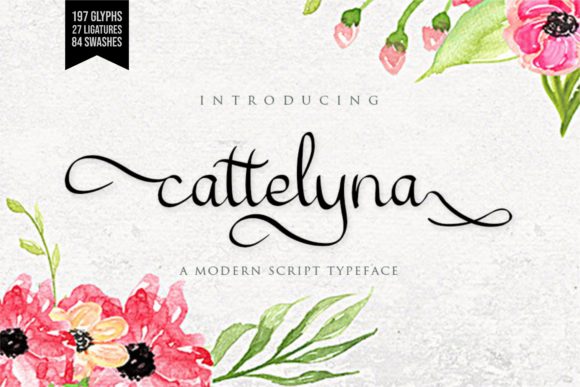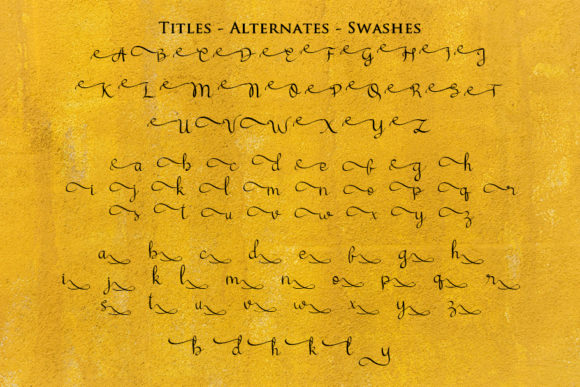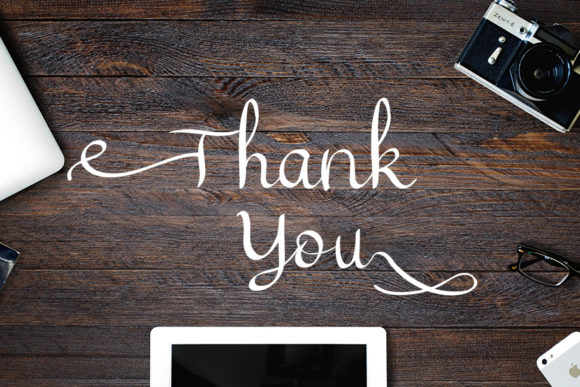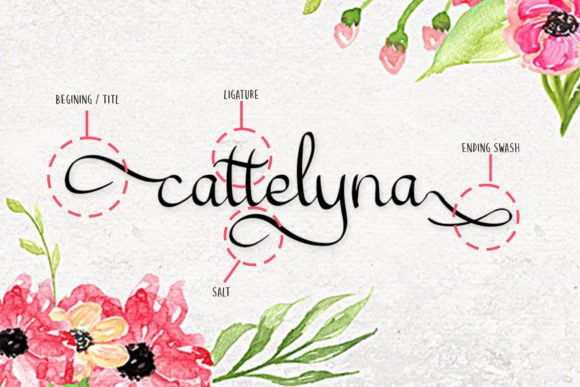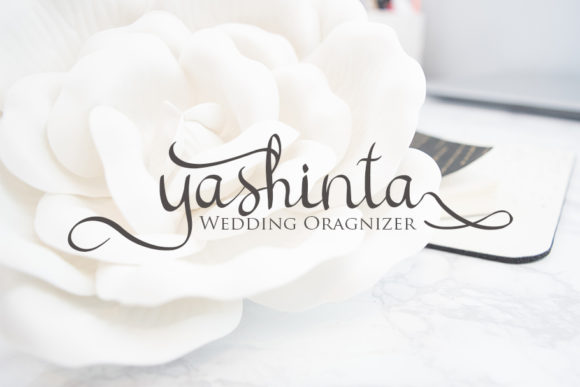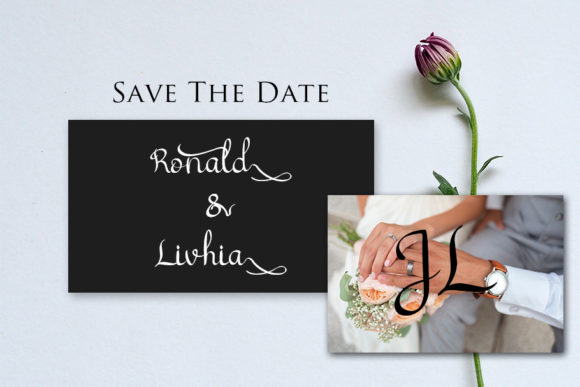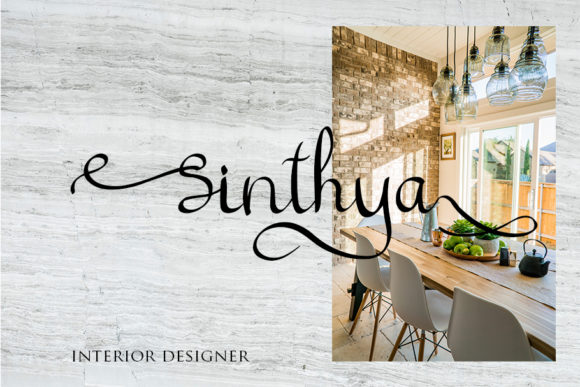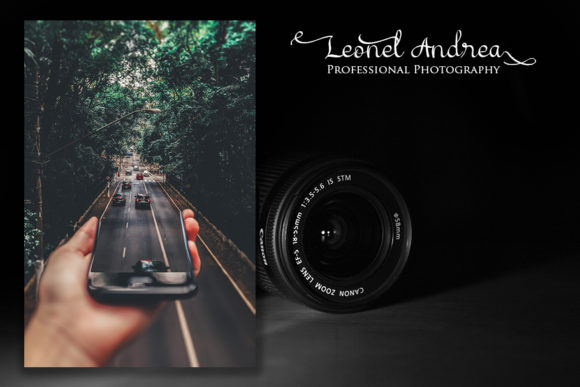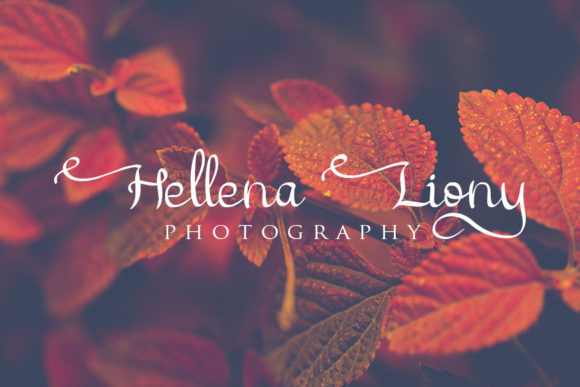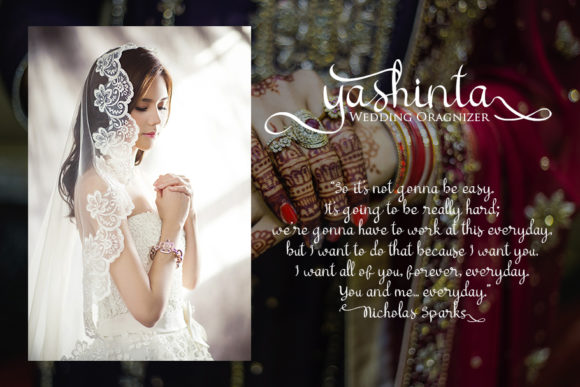
Cattelyna Font
About Cattelyna Font
The cattelyna is a modern beautiful typeface. It’s perfect for feminine, elegant, and luxurious designs. It has a fresh and modern look which can be used for greeting cards, branding materials, quotes, posters, and much more.